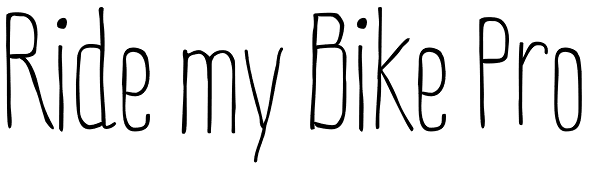
Ride my Bike
Ride my bike is a fresh handmade typeface inspired by street style and the new culture that moves pedaling around the city. Perfect for use in headlines, brands and fashion photography compose alternative, thanks to its leading characters...